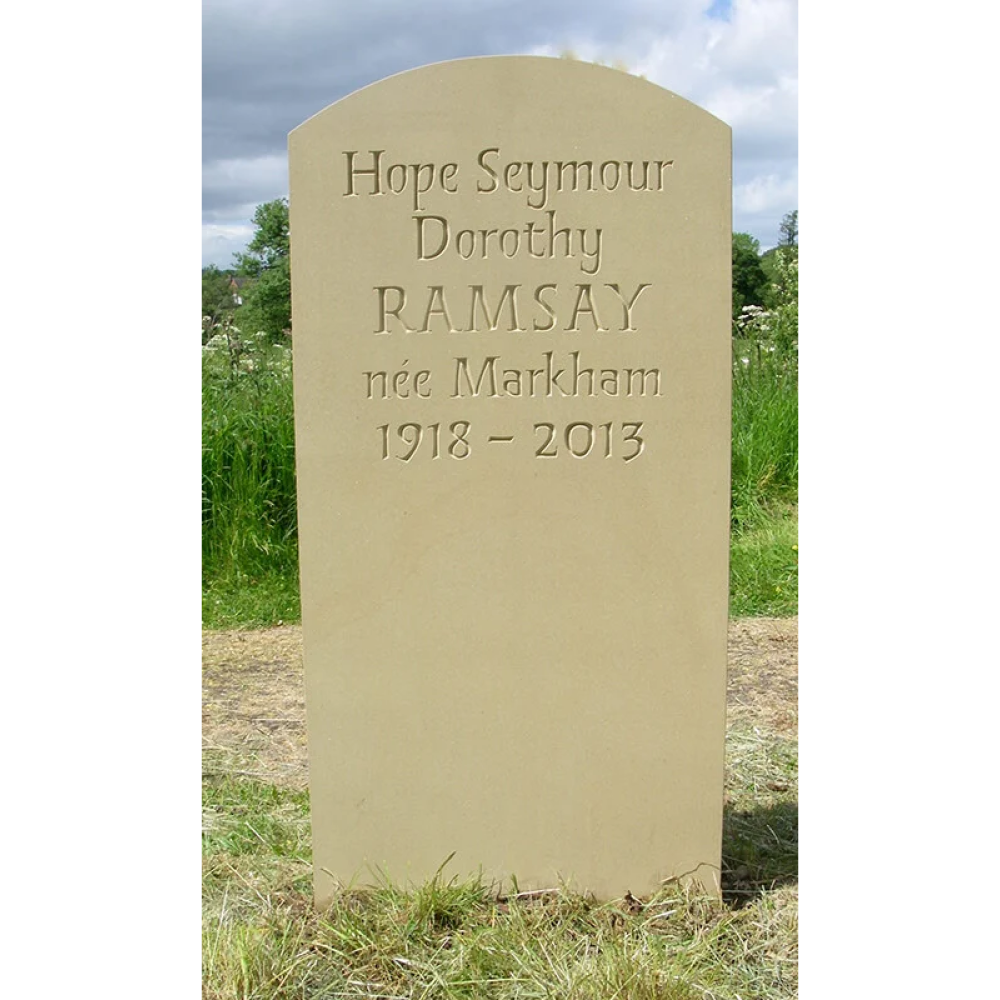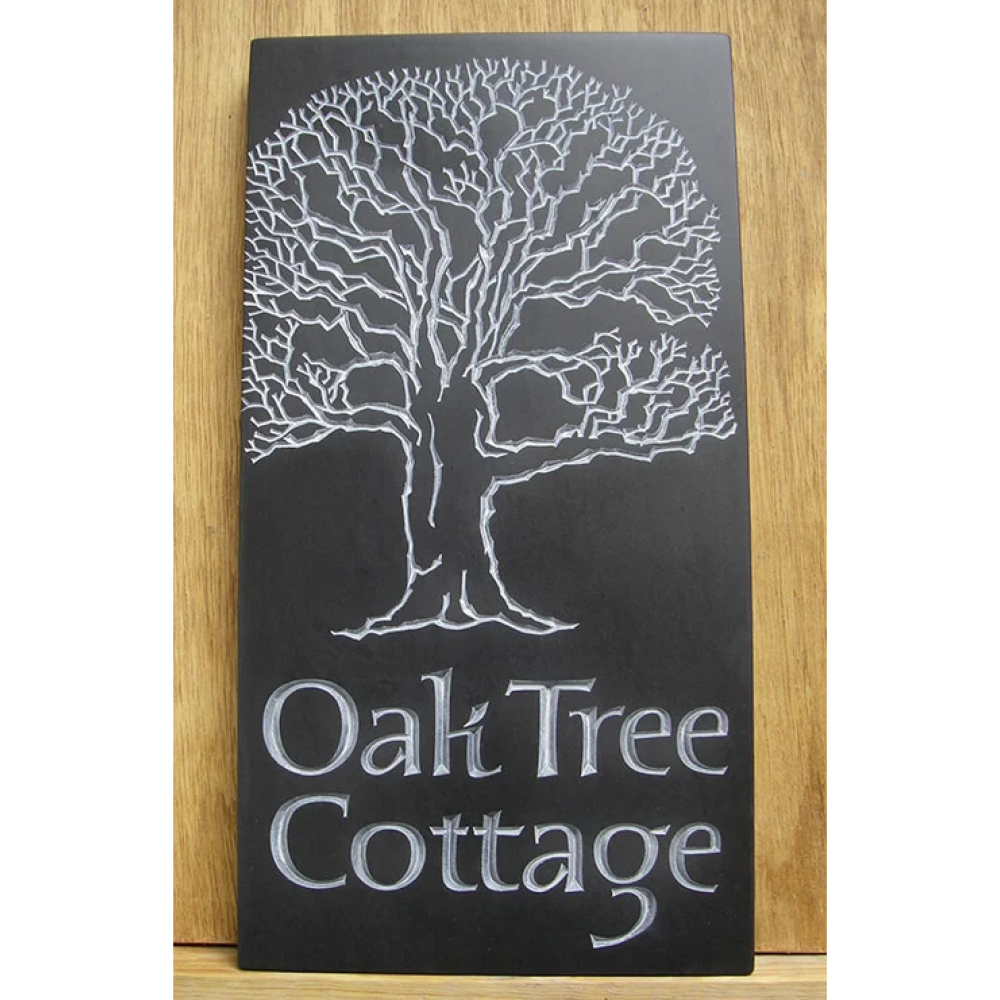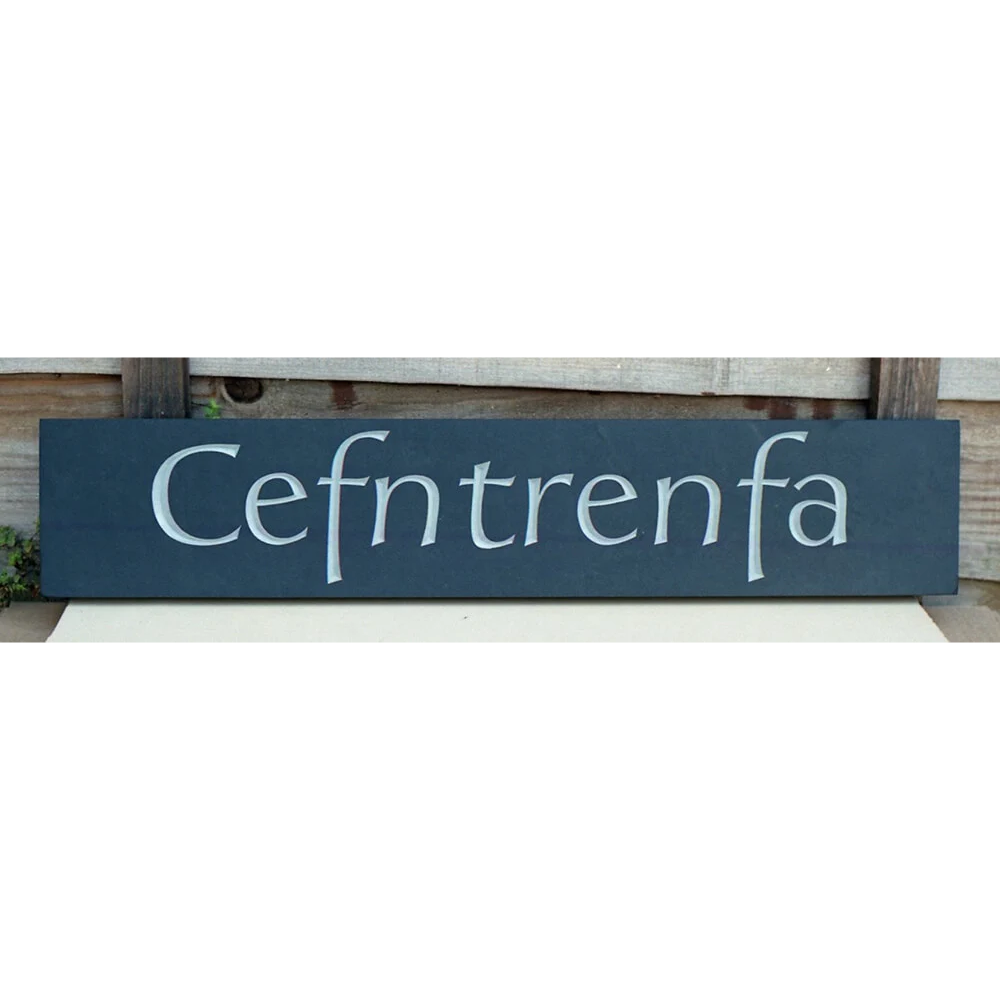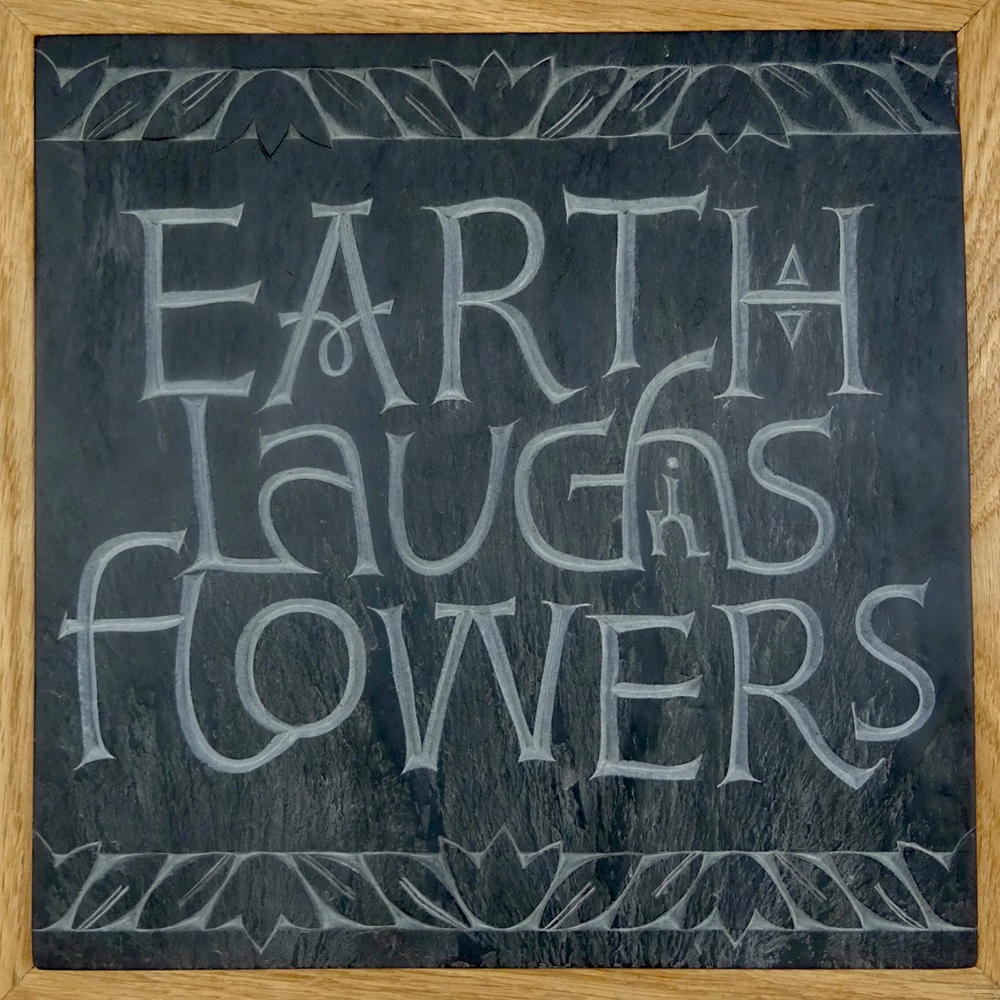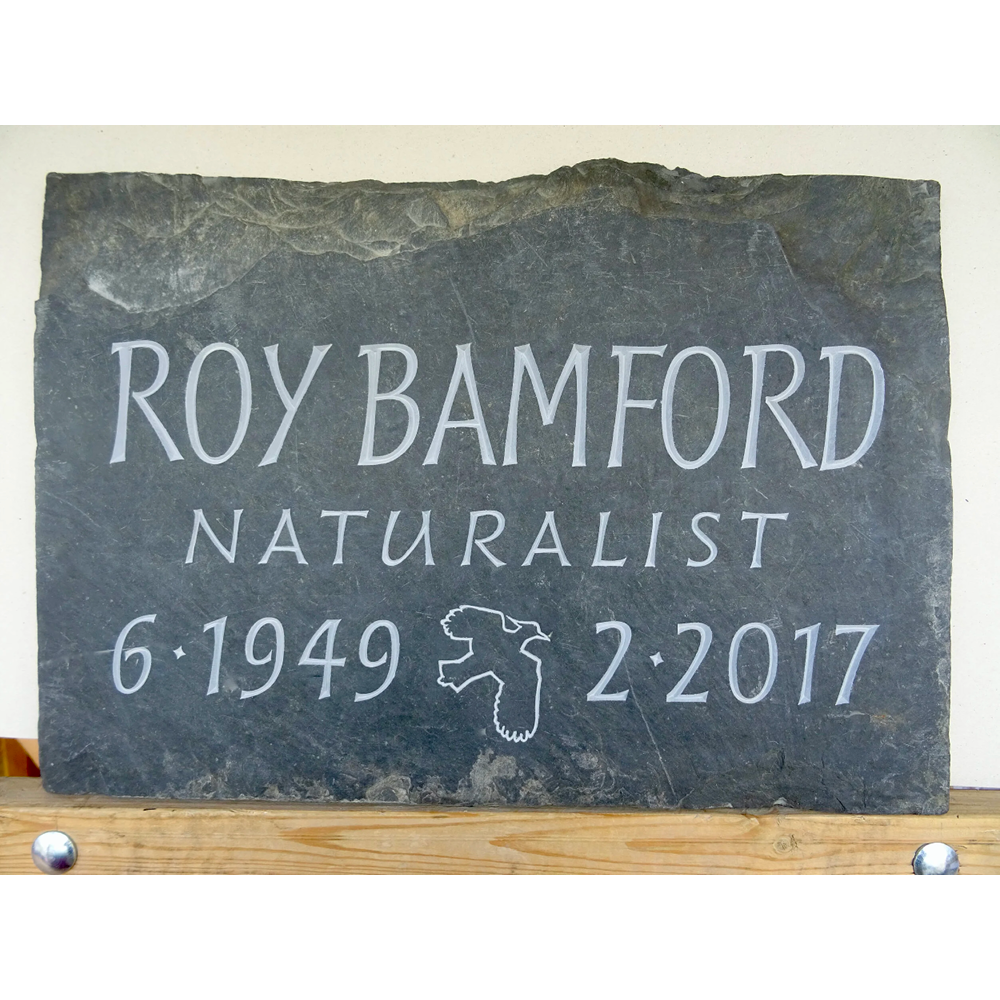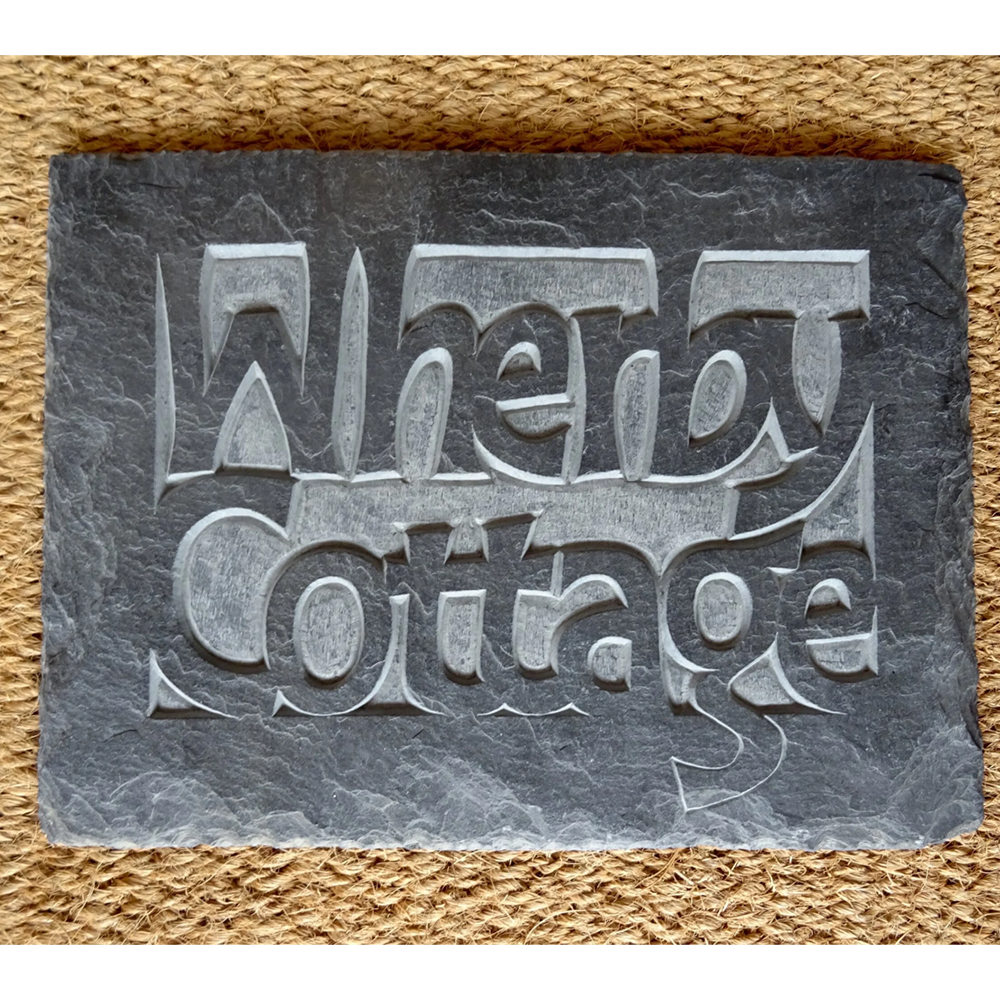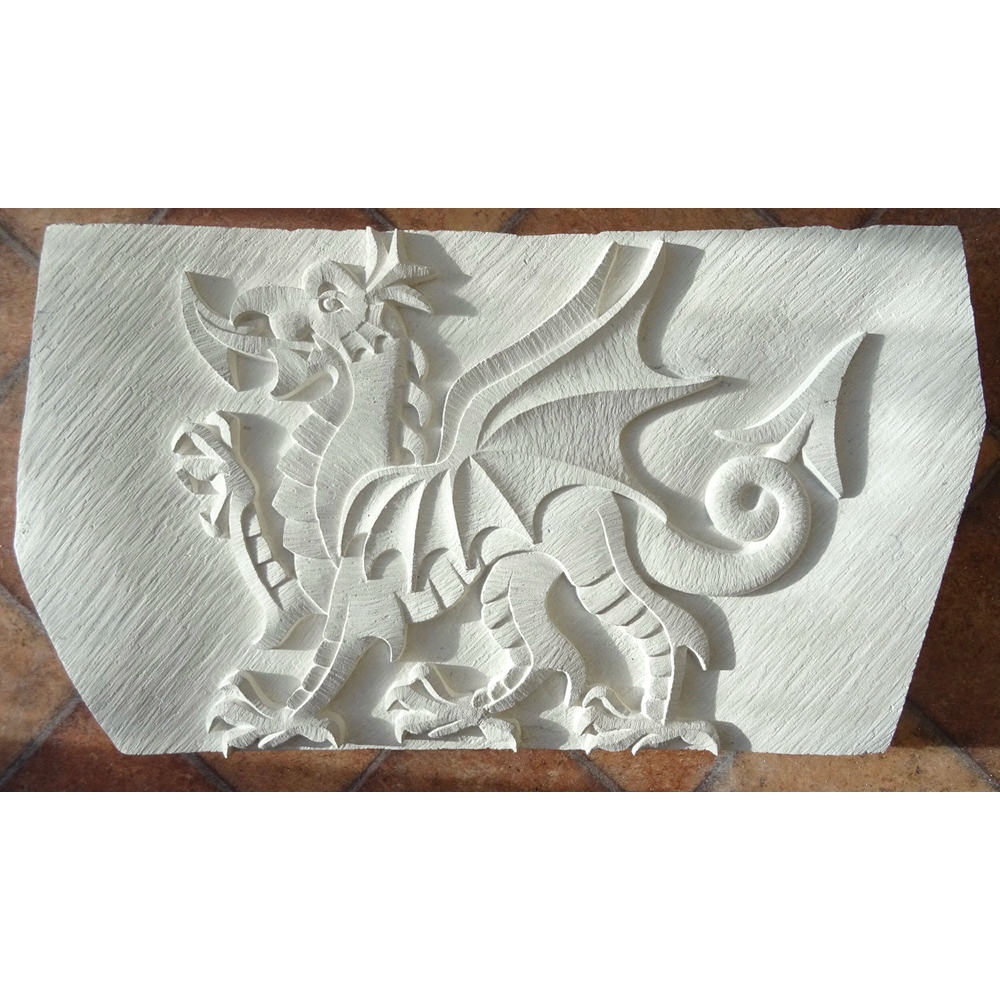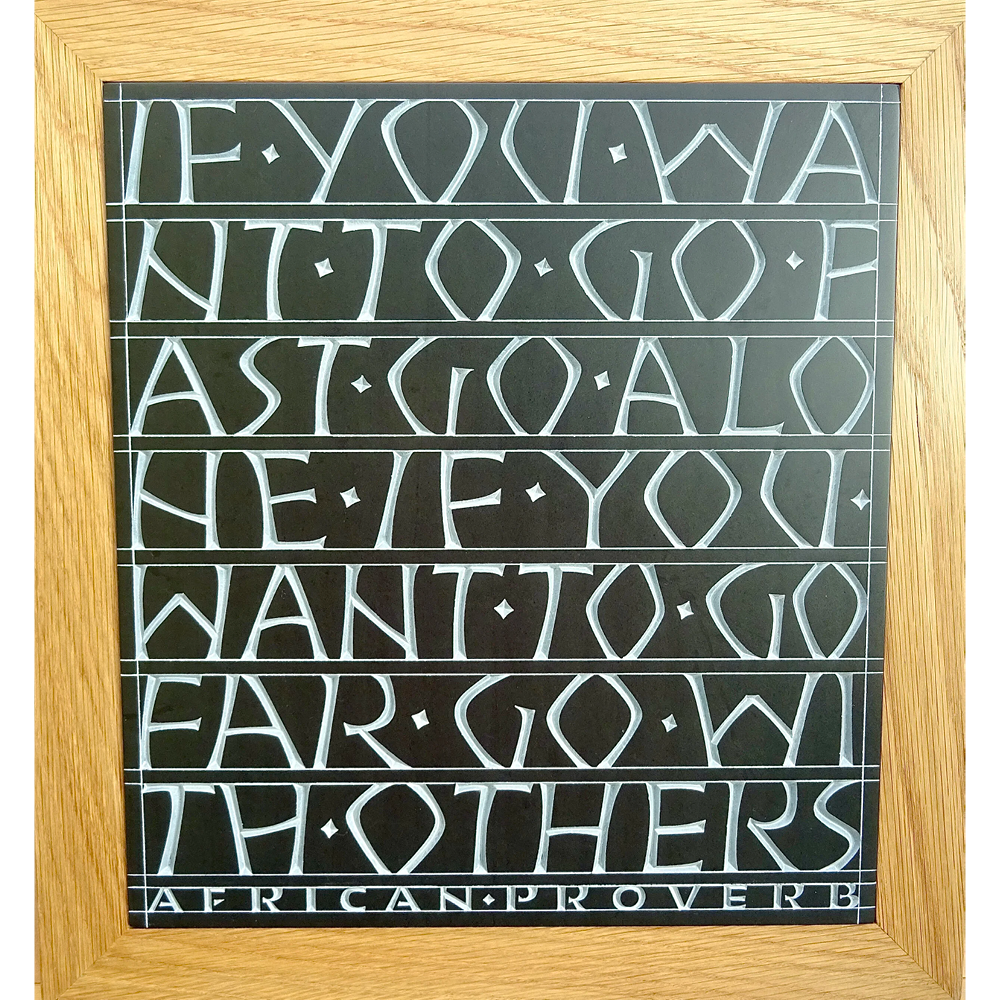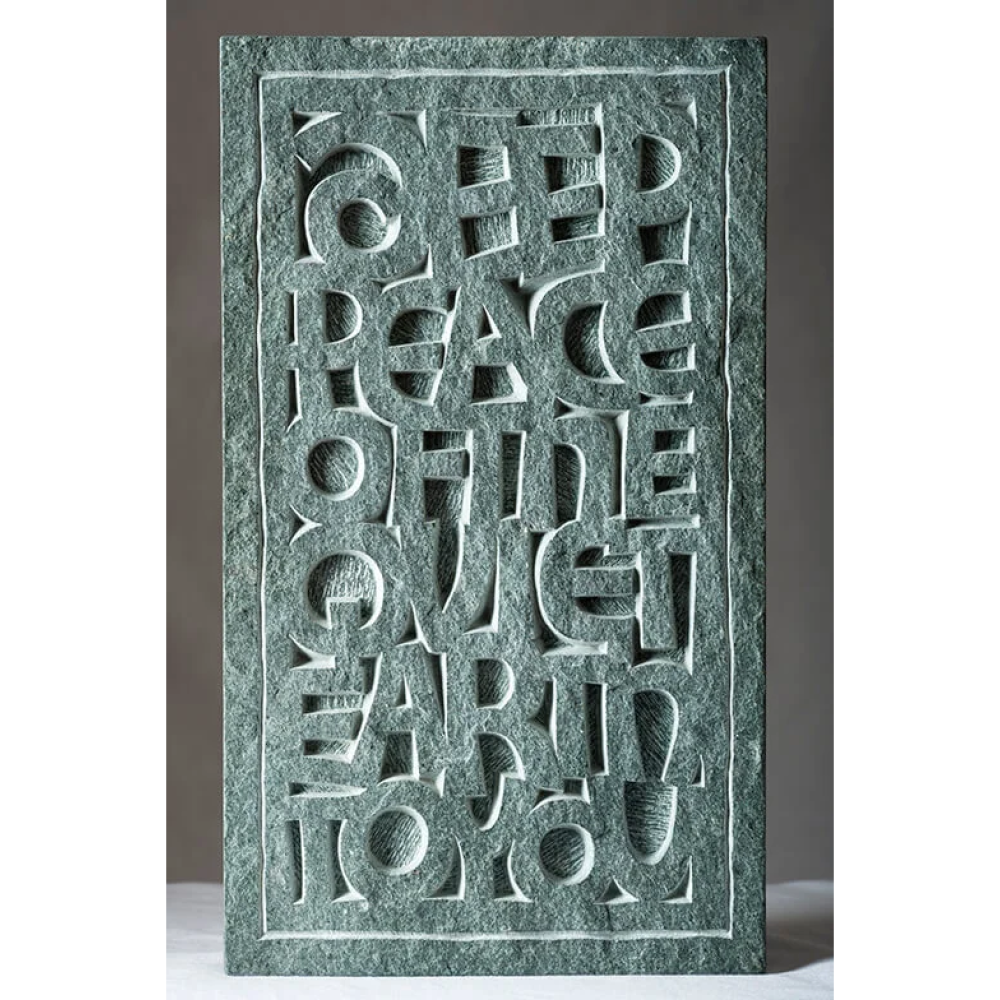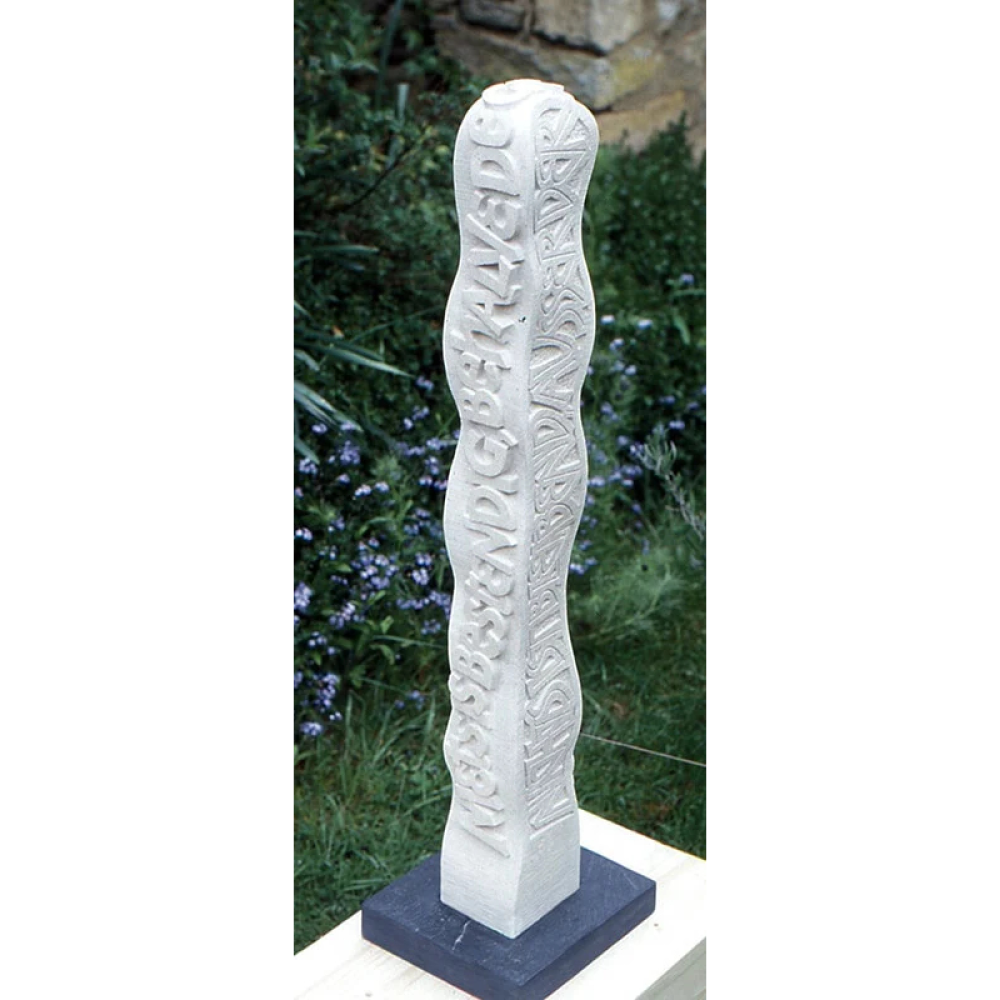
I am a letter carver, letter designer and calligrapher working from my studio in the Dovey Valley, near Machynlleth in Wales. I carve memorials, plaques, house signs, garden features and celebratory pieces to commission, as well as personal inscriptions, standing stones and sculptural creations for exhibition. Materials are usually British limestone, sandstone or slate and all work is done by hand.
To create something beautiful and meaningful, to do it with care and attention to detail and with the best materials available, is what inspires me. A key part of this process is to work sensitively with the client’s concepts and ideas to develop a mutually satisfying design and final carved artefact.
The basis of creating unique inscriptions in stone lies in the design and drawing of the letters by hand. Characteristics such as strength, joy, playfulness, elegance - whatever the brief might demand - can be reflected in the design. This provides both endless challenges and great enjoyment.